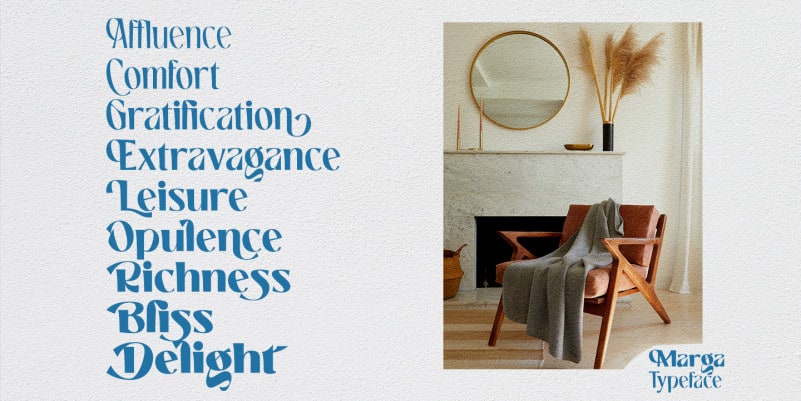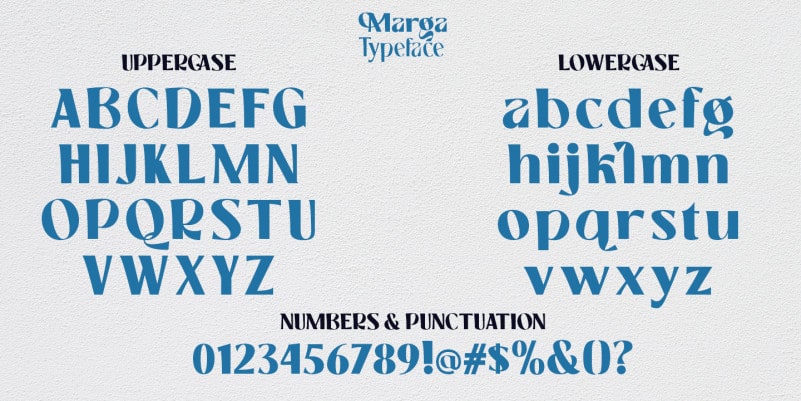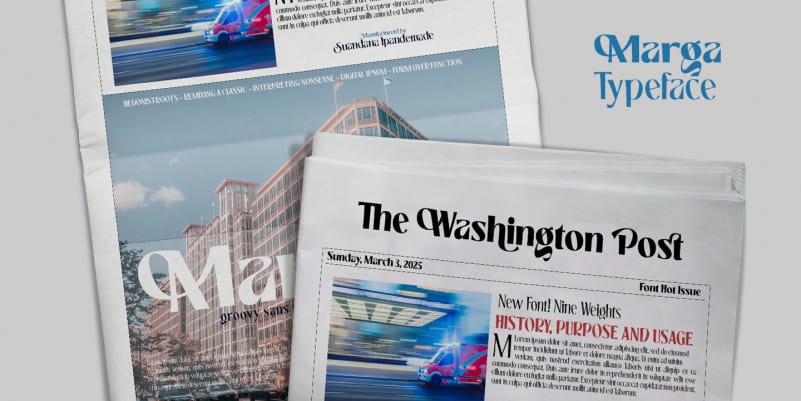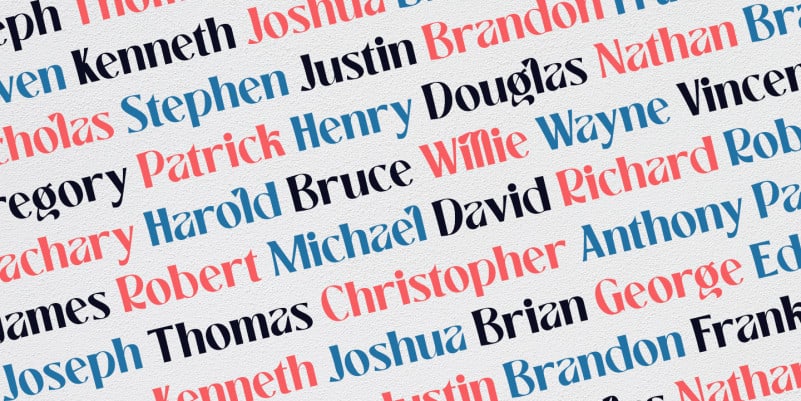
Marga – Groovy Sans Font Family
Marga – Groovy Sans Font is a groovy sans family with much special alternative glyphs and ligatures comes with 9 variable weight to get more stunning. Use this font family for any branding, product packaging, invitation, quotes, t-shirt, label, poster, logo etc.